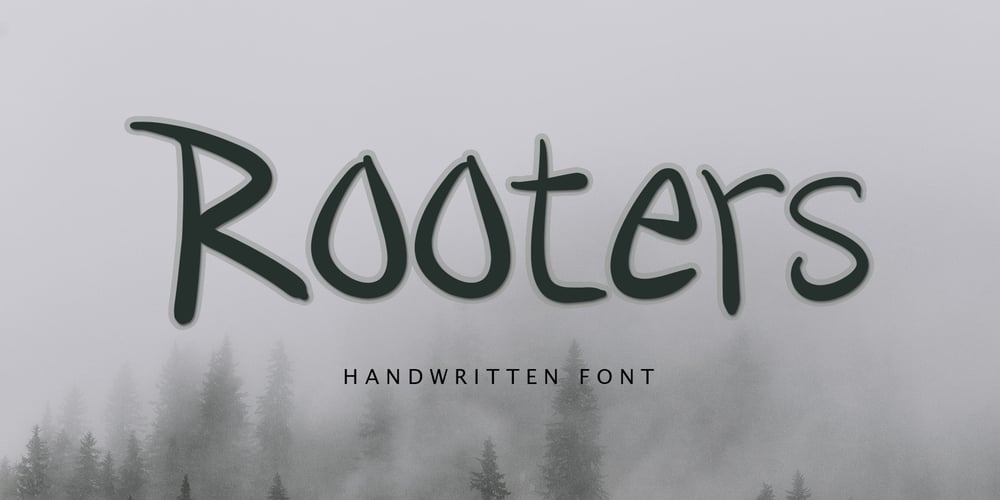
Rooters Font Family was designed by Ahmad Afandi and published by Letterafandi Studio. Rooters contains 2 styles and family package options. Rooters is a Handwritten font. That font is perfect for; logos, greeting cards, package design, brand identity, craft design, any DIY project, book title, packaging, another project, and more.